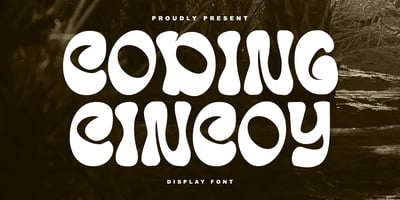
MC Coding Cincoy Font Family was designed by Gilang Maulana and published by Maulana Creative. MC Coding Cincoy contains 1 styles and family package options. Coding Cincoy display font. Bold stroke, fun character with a bit of ligatures and alternates. To give you an extra creative work. Coding Cincoy display font support multilingual more than 100+ language. This font is good for logo design, Social media, Movie Titles, Books Titles, a short text even a long text letter and good for your secondary text font with script or serif. Make a stunning work with Coding Cincoy display font.